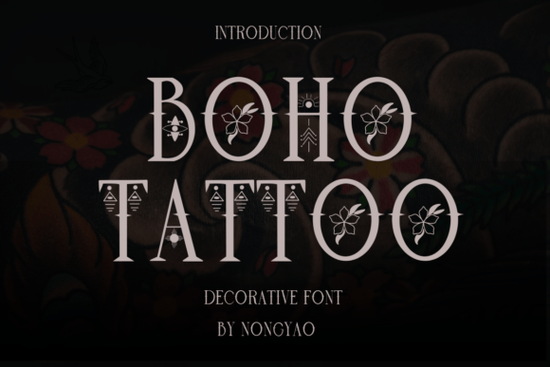
If you have ever wanted a typeface that feels like it belongs in an old apothecary shop mixed with modern art, Boho Tattoo Font might be exactly what you need. This decorative font brings together spiritual geometry, botanical artistry, and free-spirited elegance. It is designed to turn standard headlines into wearable art without sacrificing the ability to read your message clearly. Whether you are designing labels for a skincare line or creating artwork for tattoo parlor branding, this asset serves as an extraordinary choice for mystical and alternative aesthetic projects.
What does the design actually look like?
The standout feature of this face is its intricate balance between structure and ornamentation. The creators took classical serif letterforms and merged them with hand-carved celestial symbols. Inside the solid letter stems, you will find delicate five-petal cherry blossoms, leafy vines, esoteric evil eyes, and tribal arrow vectors. There are also geometric sunburst triangles nesting within the vertical bars. These internal illustrations add depth, making the text stand out even against detailed patterns or dark, moody backdrops.
Unlike many display fonts that become unreadable blocks of shape, this family retains exquisite legibility due to sharp, meticulously clean outlines. It maintains distinctive mid-stem spiked flair on its vertical bars which gives it character without cluttering the letters. You can see how versatile it becomes when you compare it to other options on our site, such as this broader collection of decorative options.
Which creative projects are best suited for this font?
Because of its heavy symbolism and specific mood, it works exceptionally well for niche branding rather than everyday body text. Think about layouts for mystical tarot cards where the imagery needs to feel authentic to the genre. It is also perfect for bohemian fashion lookbooks where the clothing itself might feature floral or tribal prints that need to match the typography. Personalized tattoo parlor logos benefit heavily from the ink-like quality of the strokes.
When building organic skincare line product packaging, you can use the botanical elements to reinforce the "natural ingredients" message. For instance, if you are designing a label for a face oil, the cherry blossom detail inside the letters complements plant-based formulations nicely. If you are interested in exploring other nature-inspired lettering, checking out our selections featuring floral motifs could offer further inspiration for matching themes.
Alternatively, if your project leans more towards the night sky or moon phases, consider a pairing with typesets focused on lunar aesthetics. Combining high-contrast scripts with the structured look of this font creates a layered composition that draws the eye. It essentially serves as a bridge between ancient symbol systems and contemporary graphic design trends.
Will it stay readable when printed small?
This is often the biggest concern for crafters who plan to use large quantity print-on-demand items. Fortunately, this typeface is engineered to retain distinct shapes even at smaller sizes. The high contrast helps the white negative space inside the letters remain visible against darker backgrounds. When used on t-shirts or stickers, the internal symbols act as visual anchors that keep the viewer engaged.
You should test your file on the specific material you intend to use. While the design handles detail well, extremely thin textures in screen printing or fabric transfer paper might lose the finest lines of the leaves. For larger formats like wall art posters or canvas prints, the details shine. For smaller merchandise, sticking to bold weights ensures clarity. Exploring classic vintage styles alongside this can help establish a cohesive brand identity for mixed-media campaigns.